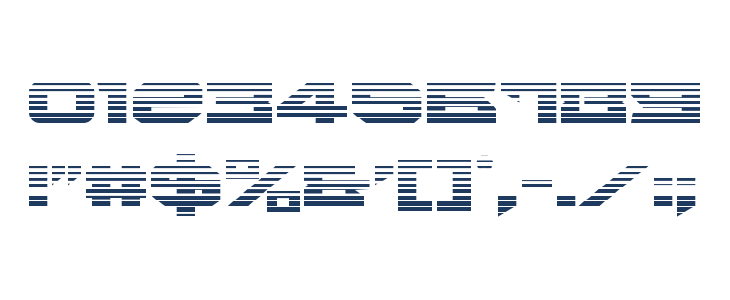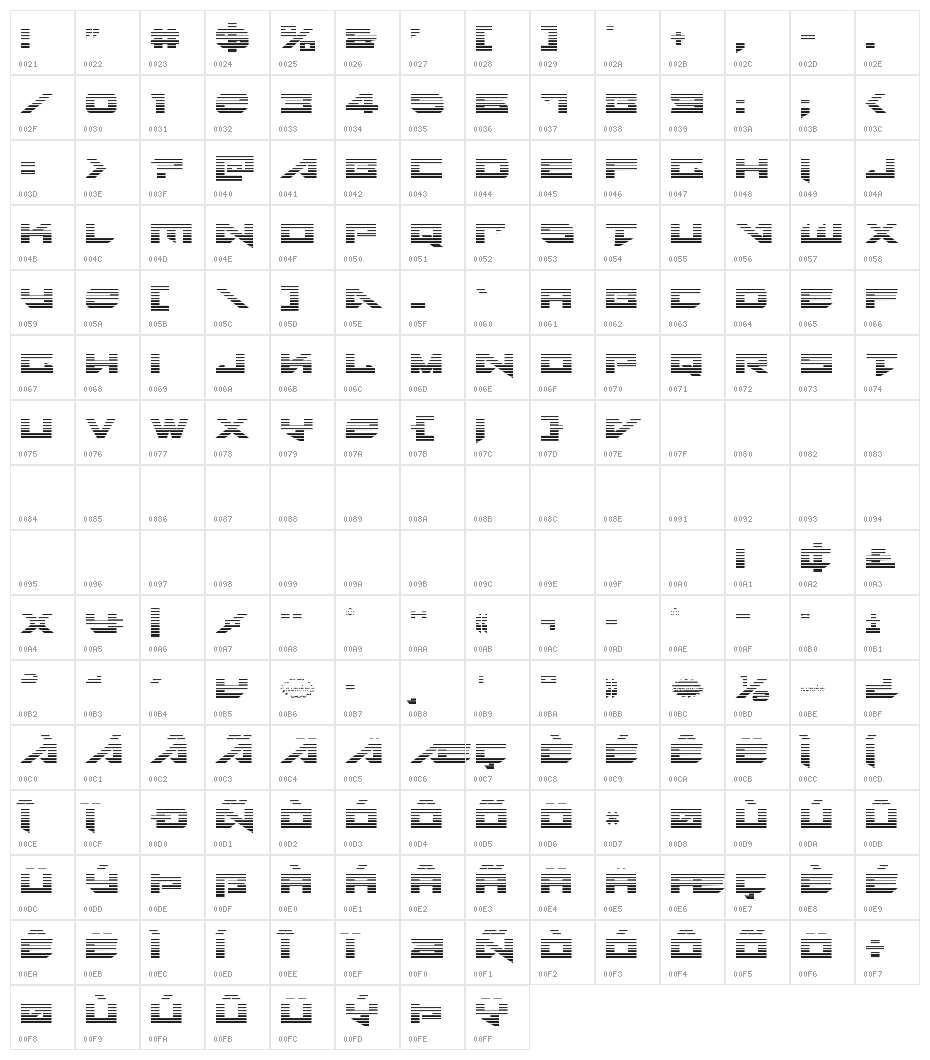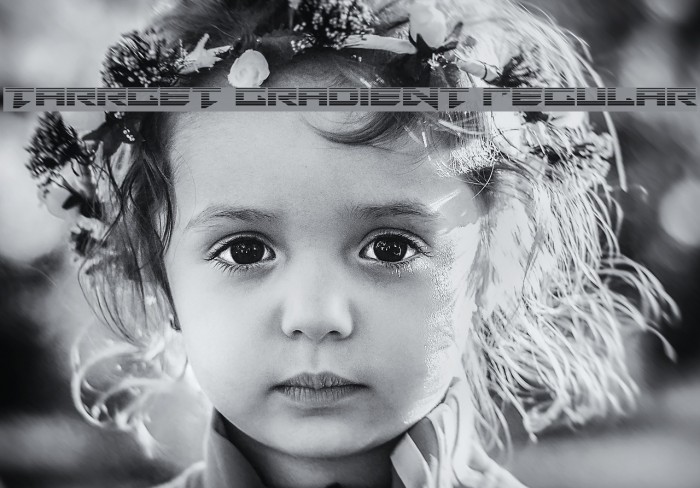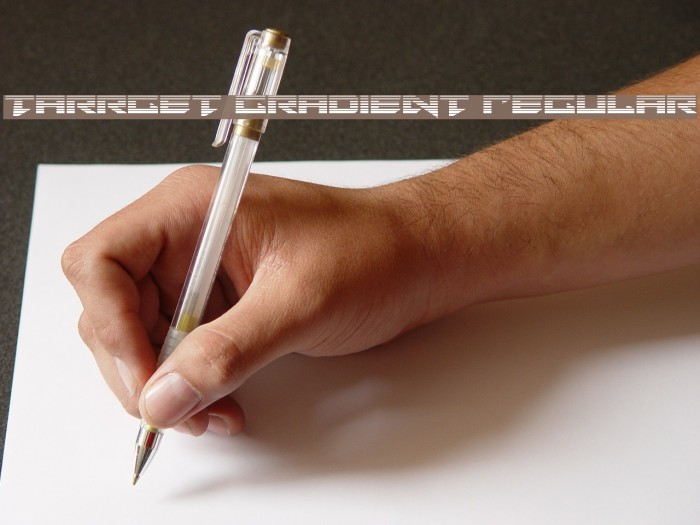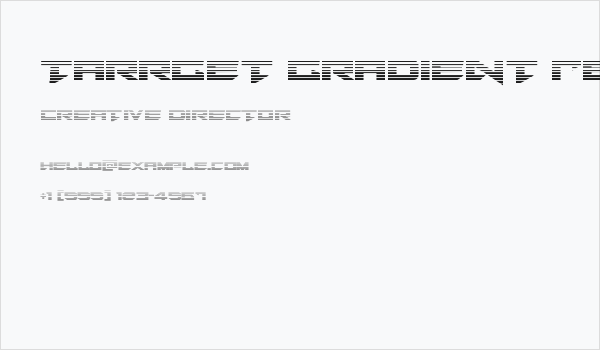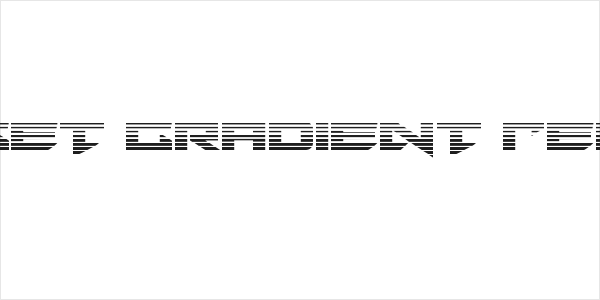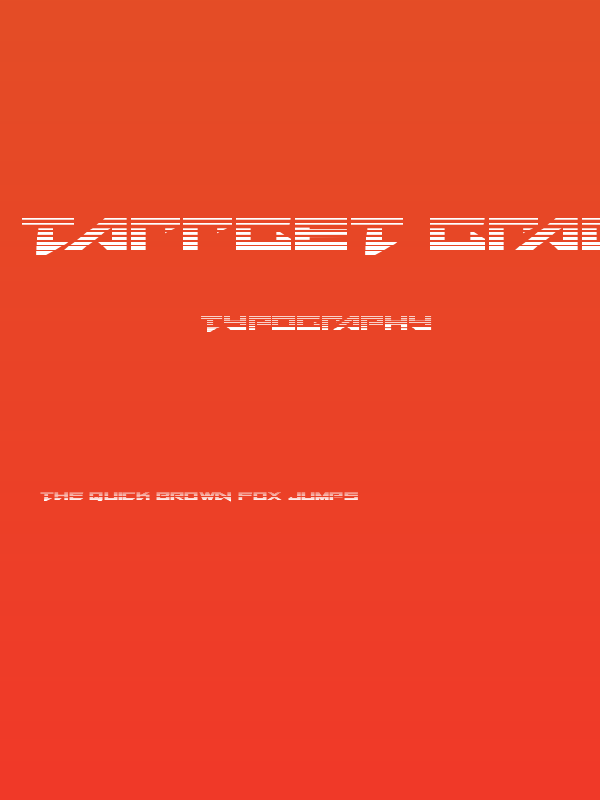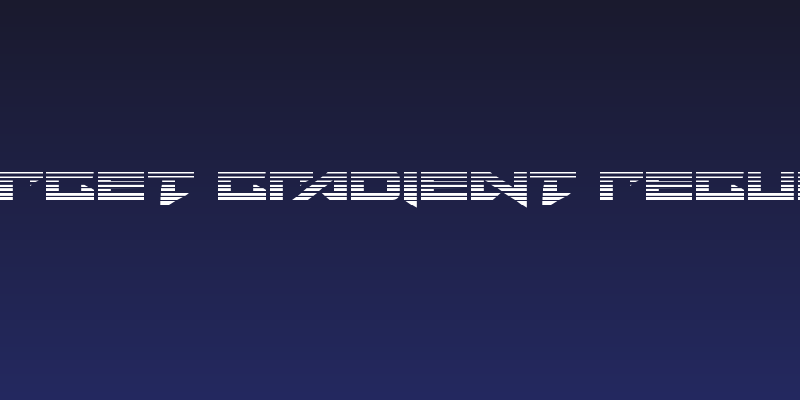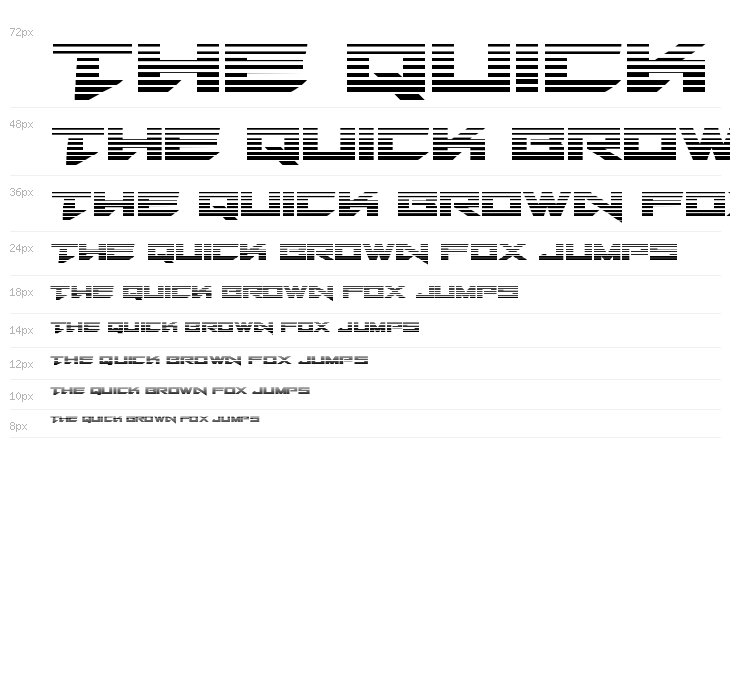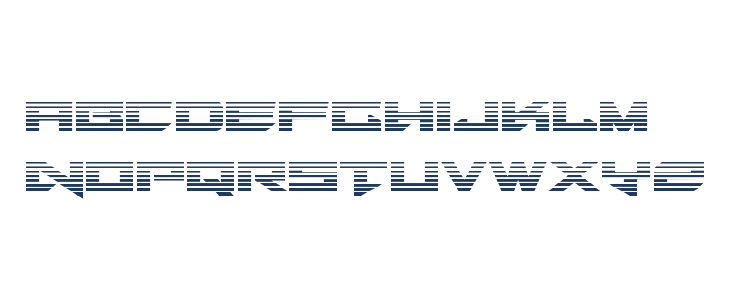
Tarrget Gradient Regular Font
Tarrget Gradient Regular Description
This font features a unique, futuristic design characterized by horizontal lines that create a gradient effect across each character. The letters are bold and geometric, with sharp angles and a distinct, modern aesthetic. The uppercase and lowercase letters maintain a consistent style, while the numerals and special characters integrate seamlessly with the overall design. This font's striking appearance makes it ideal for projects that require a bold statement or a modern, tech-inspired look.